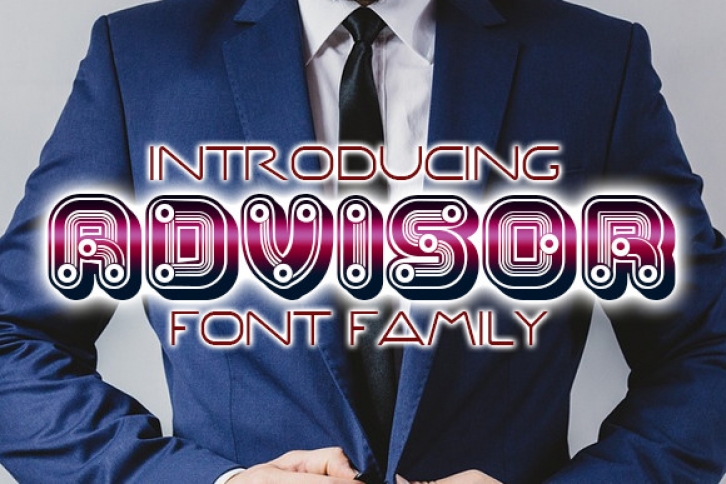
Advisor is a bizarre and one-of-a-kind display typeface. With its irregular, hand-drawn letterforms and unpredictable slants, this font is perfect for creating quirky, offbeat designs that stand out from the crowd. Use it for headlines, posters, and titles that demand attention and a touch of the strange.